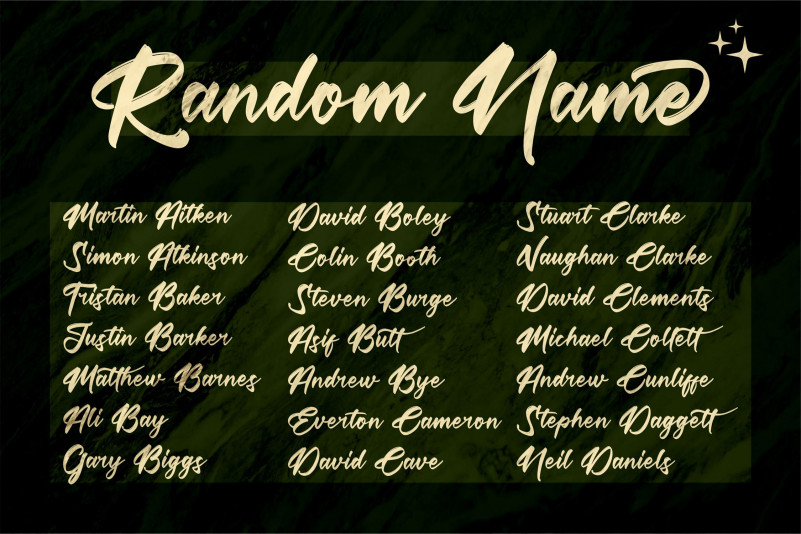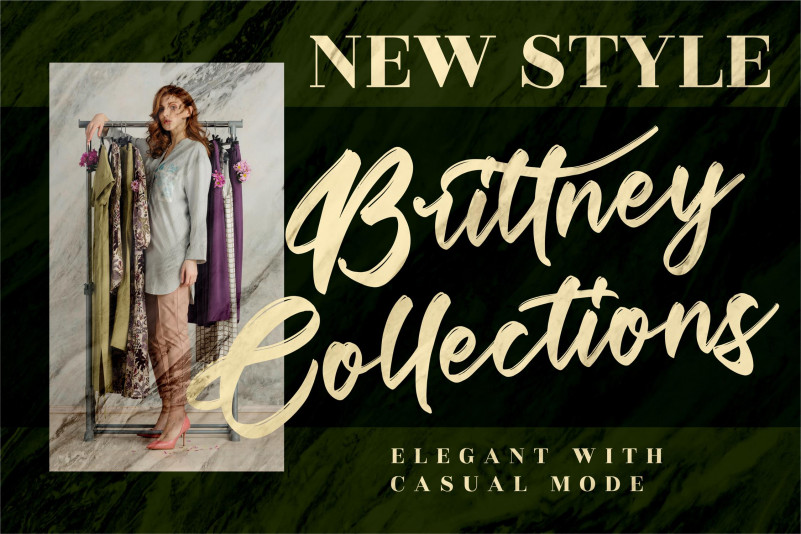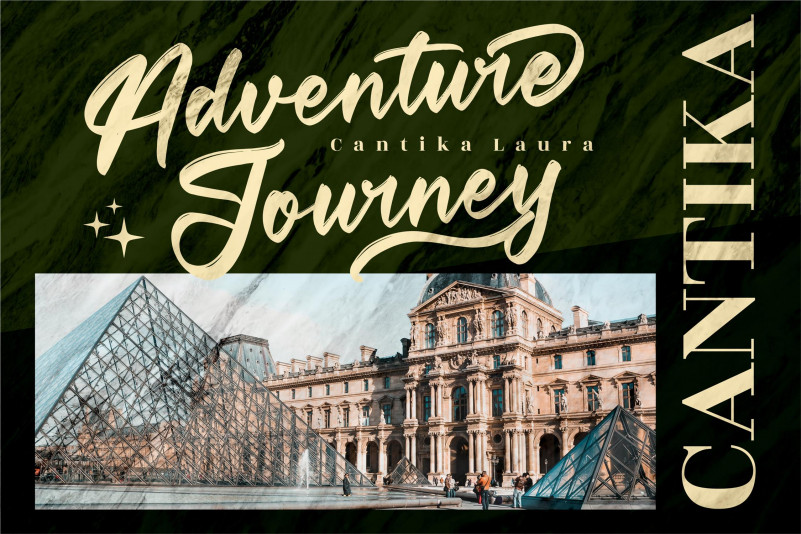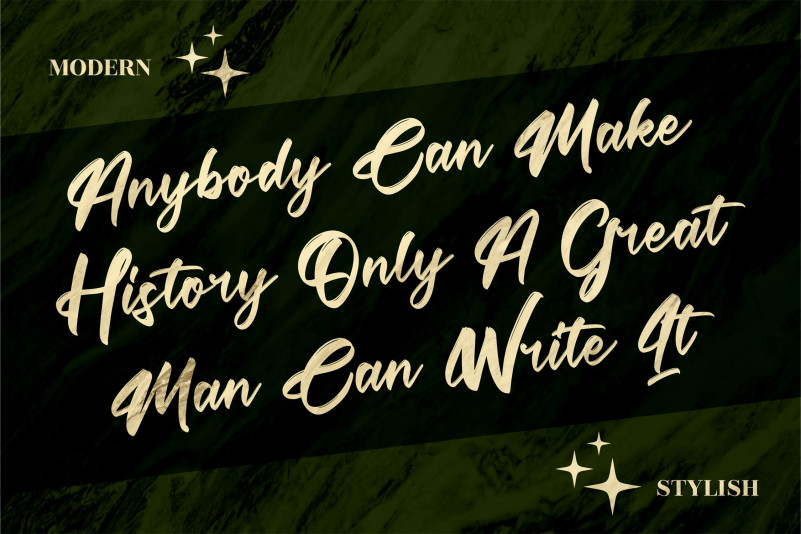
Futuristic Rottesla Font
Futuristic Rottesla Brush Font
This is a premium signature font, suitable for any projects such as: logos, branding projects, homeware designs, product packaging, mugs, quotes, posters, shopping bags, t-shirts, book covers, name card, invitation cards, greeting cards, label, photography, watermark, special events, and all your other luxury projects that need a premium signature taste.